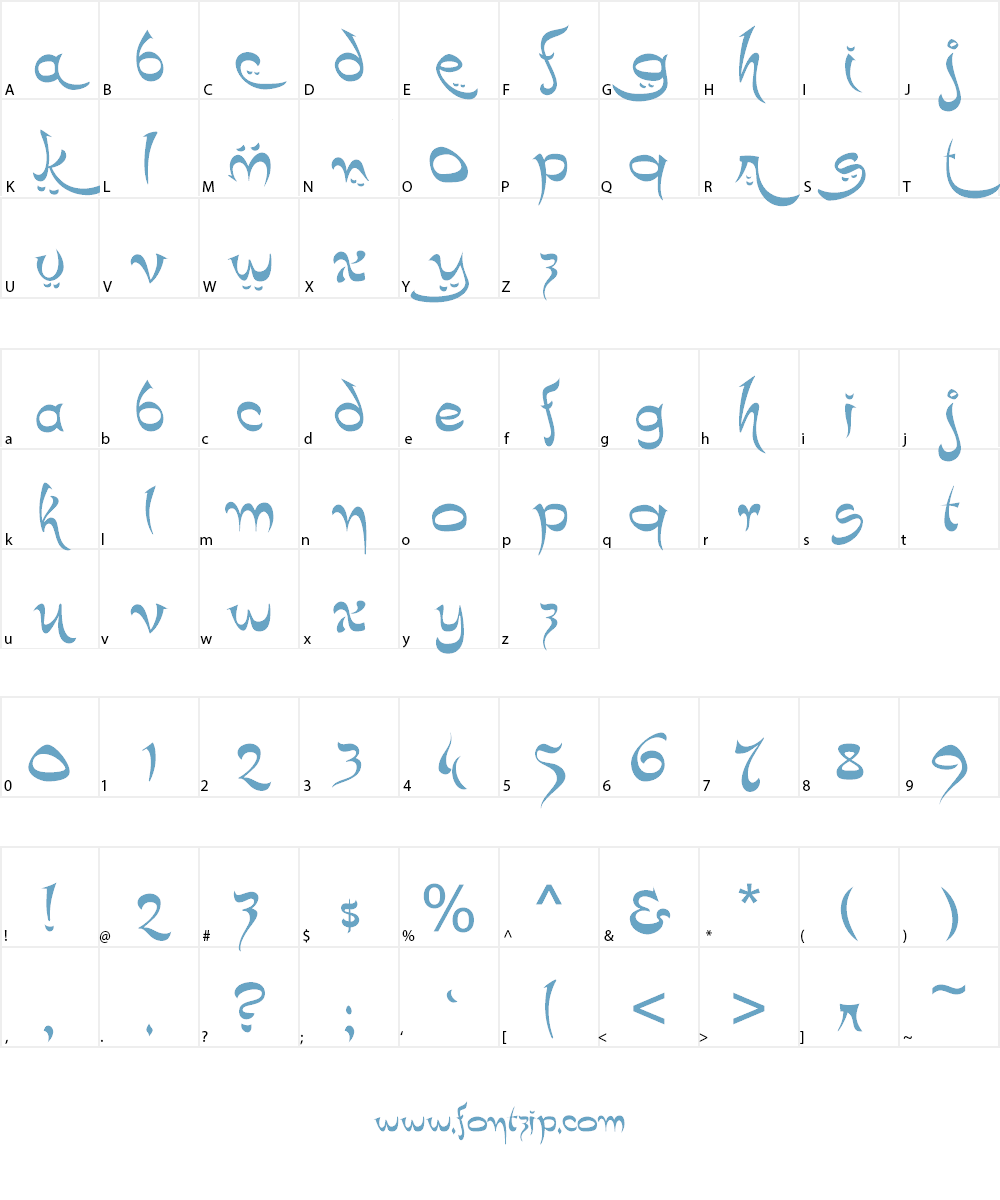
K22 Timbuctu is based on Timbuctu from page 95 of Special Effects and
Topical Alphabets: 100 Complete Fonts by Dan X. Solo (Dover Publications,
1978)